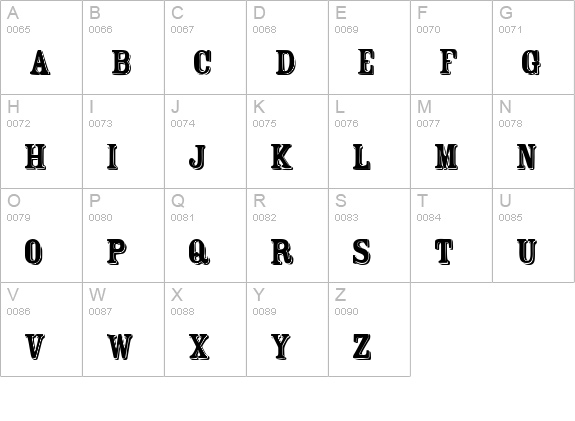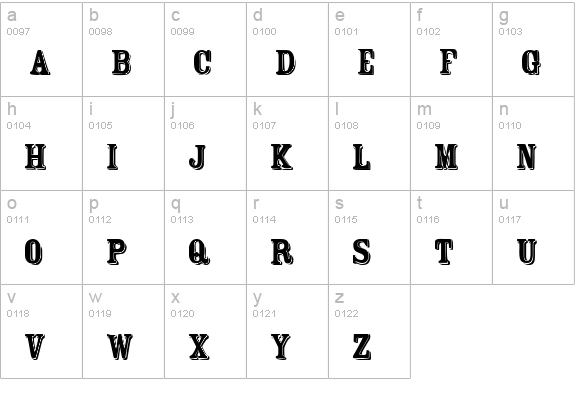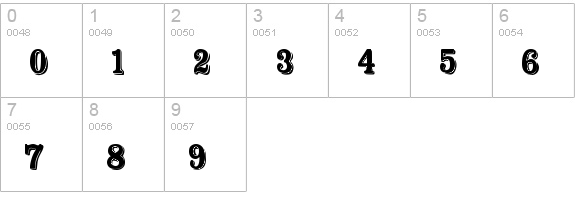
FT Rosecube normal is the standard, neutral variant in the FT typeface family \xE2\x80\x94 well suited to general body text, paragraphs, and standard typographic work.
FT Rosecube is a beautifully crafted font that exudes elegance and sophistication. Its sleek lines and delicate curves make it perfect for adding a touch of refinement to any design project. Whether you're working on a wedding invitation, a branding project, or simply want to elevate your social media posts, FT Rosecube is the ideal choice. The best part? FT Rosecube is completely free to download at FontsMarket.com. This means you can access this stunning font without any cost, making it a valuable addition to your font collection. Don't miss out on the opportunity to enhance your designs with the timeless charm of FT Rosecube. Download it today and let your creativity shine!